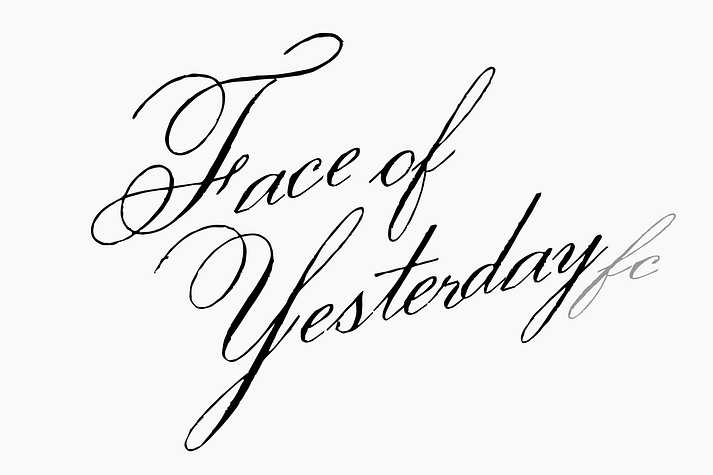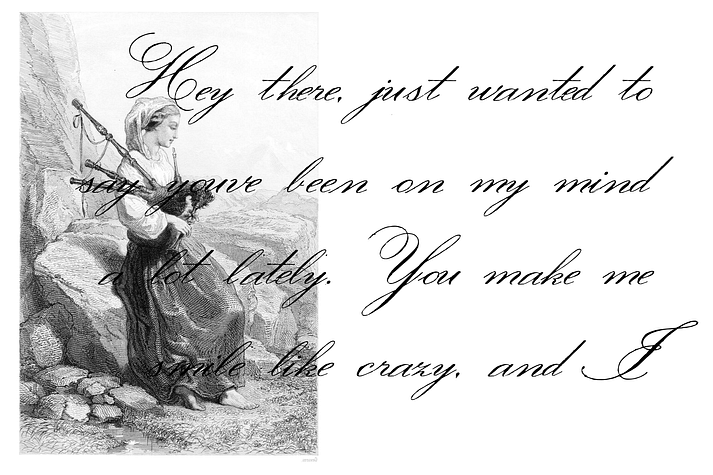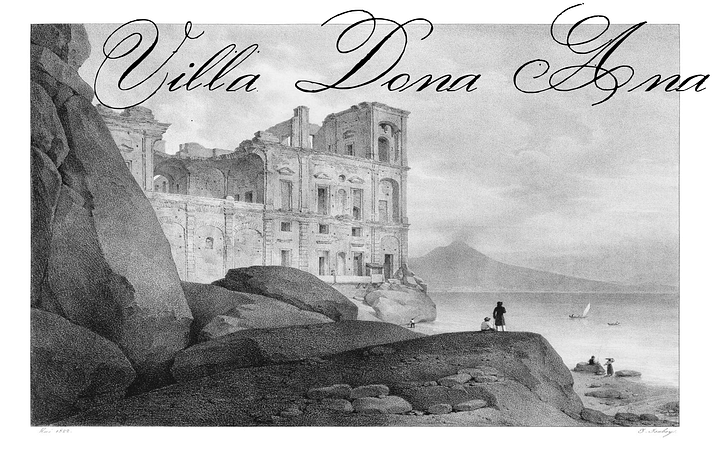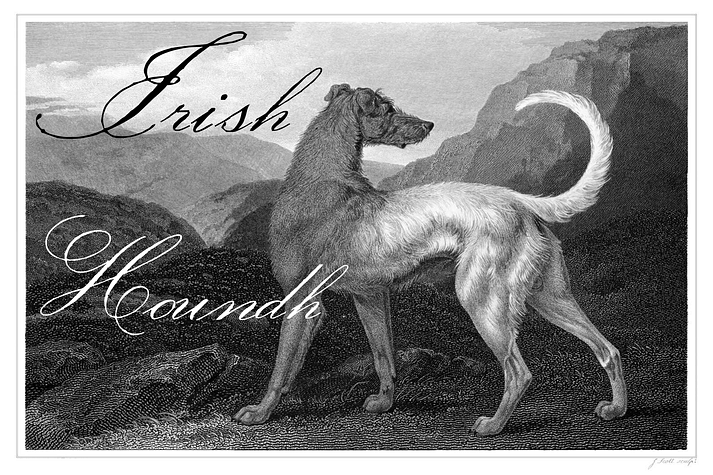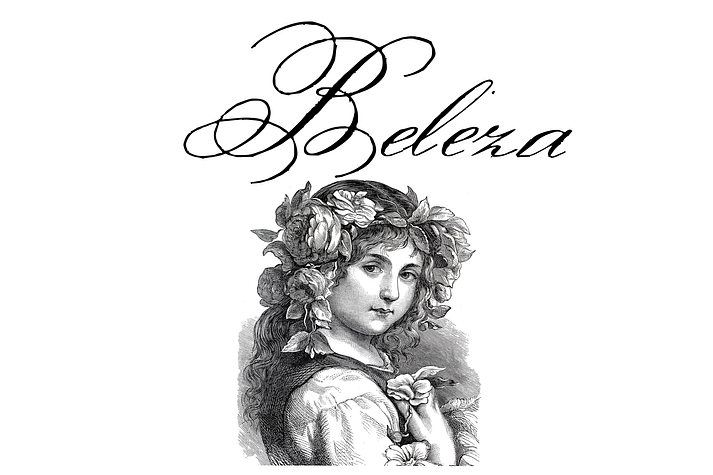
Face of Yesterday
Designed by Paulo W, Face of Yesterday is a historical font family published by Intellecta Design.
Face of Yesterday is a beautiful, calligraphy font with tons of movement and style. This script looks anchored in yesteryear, and can add a classical appeal to your projects